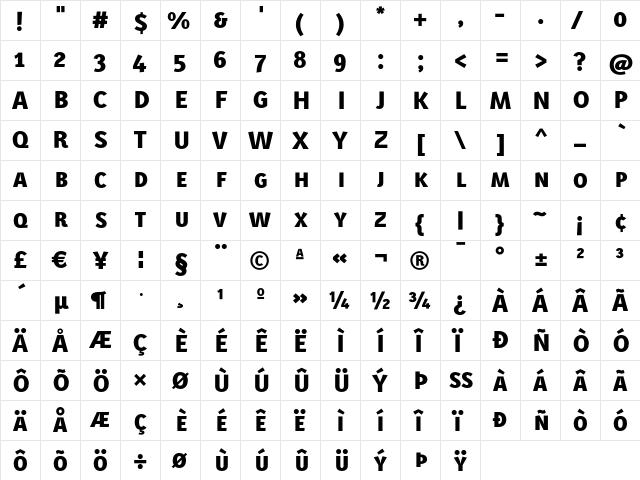
Karbid ExtraBoldCaps
Design Context for Karbid Typeface
Karbid offers clean, dependable letterforms without strong stylistic allegiance, making it a practical choice for designers who need flexibility. The heavy weight commands attention and anchors typographic hierarchies.